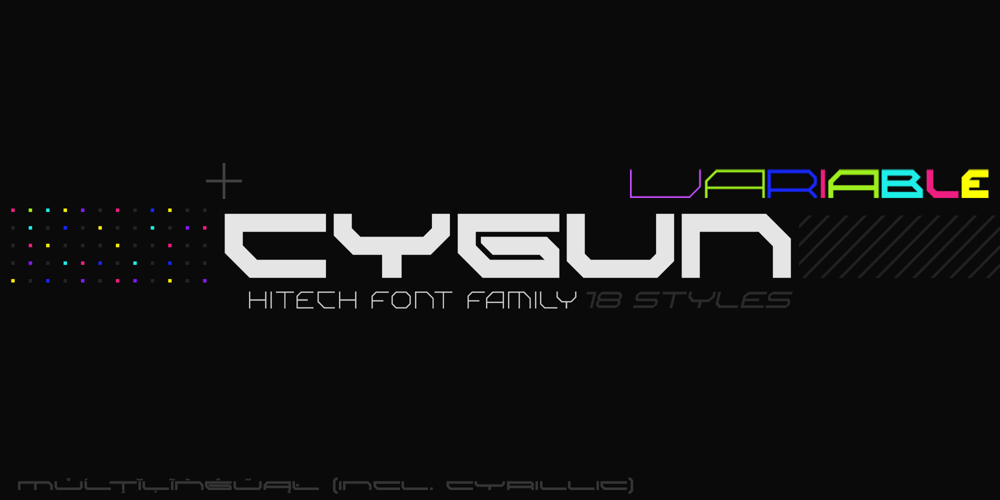
Cygun
Cygun font
Cygun Font Family was designed by Dmytro Poliakh and published by Sentavio. Cygun contains 19 styles and family package options. CYGUN is Variable Font creates modern cyberpunk futuristic hi-tech atmosphere and style.Variable Controls are: Weight, Width and Italic Axis.It is created basing on Font Family of 18 styles (Light, Bold, Condensed, Expanded etc.) which allows Cygun looks good and different as Headline and as Text both. Use it in your projects in such areas as robots&androids, cyberpunk, hi-tech, future, virtual reality, space, army, games and many others.